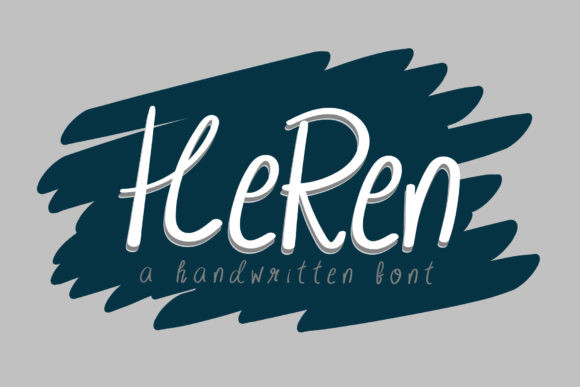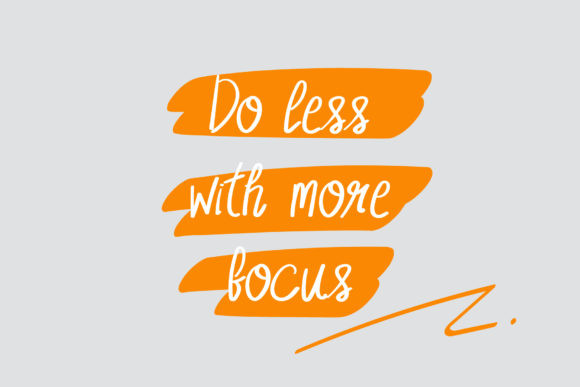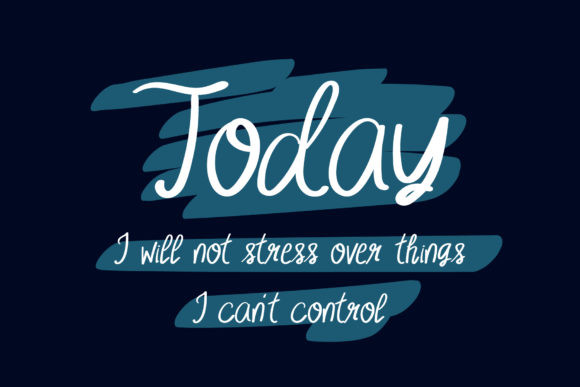
Heren Font
Heren feels equally charming and elegant. This handwritten font is the perfect fit for all of your logos, branding, social media, and crafty DIY projects.